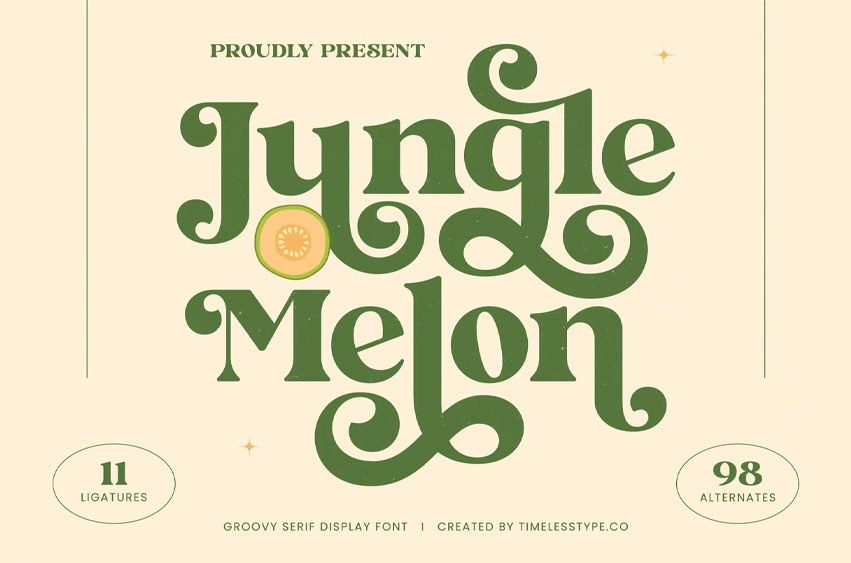
Jungle Melon Font is a groovy serif display font inspired by vintage curves, playful shapes, and natural fruit-themed aesthetics. Designed with 11 ligatures and 98 alternates, this font brings a bold retro flair with a fun and organic personality—perfect for branding that needs to feel warm, fresh, and full of life.
Its thick swirls and expressive terminals make Jungle Melon stand out beautifully in logos, packaging, summer posters, café menus, drink labels, organic product lines, and creative editorial layouts.
Whether you’re crafting tropical branding, retro visual identities, or playful design work, Jungle Melon adds character, charm, and a juicy touch of creativity to every project.